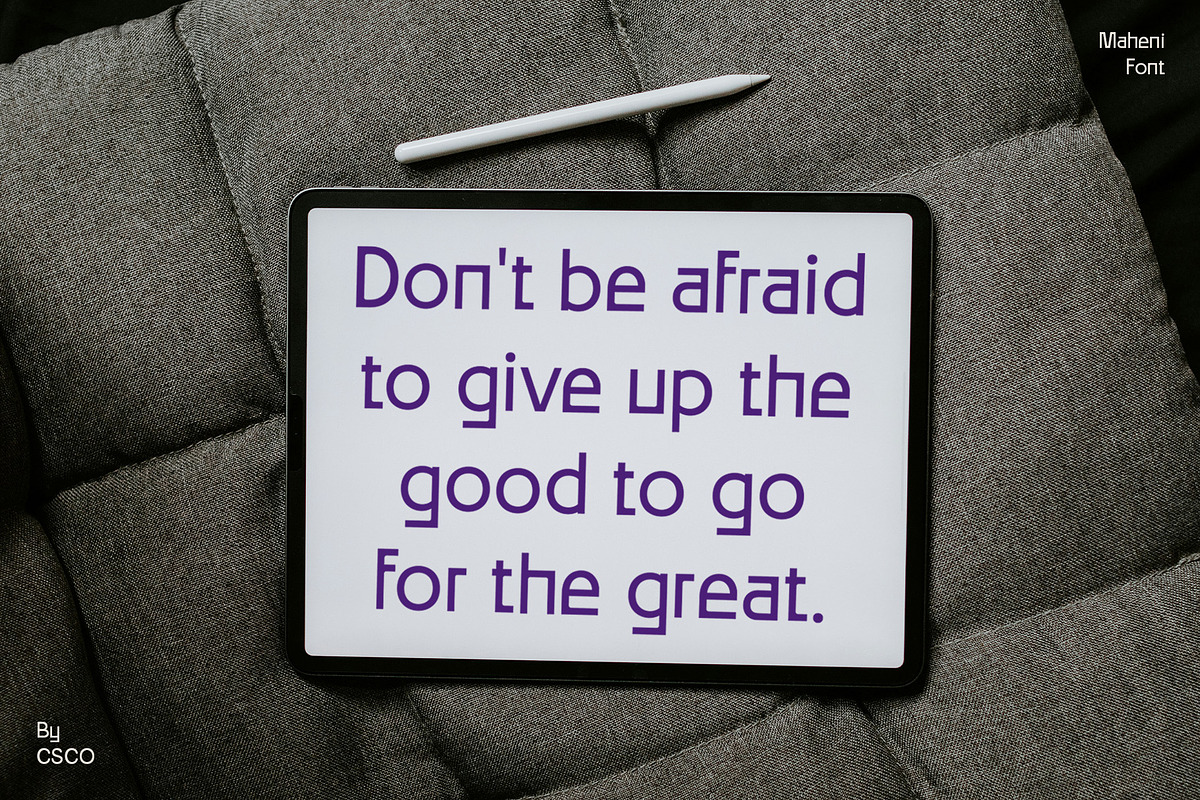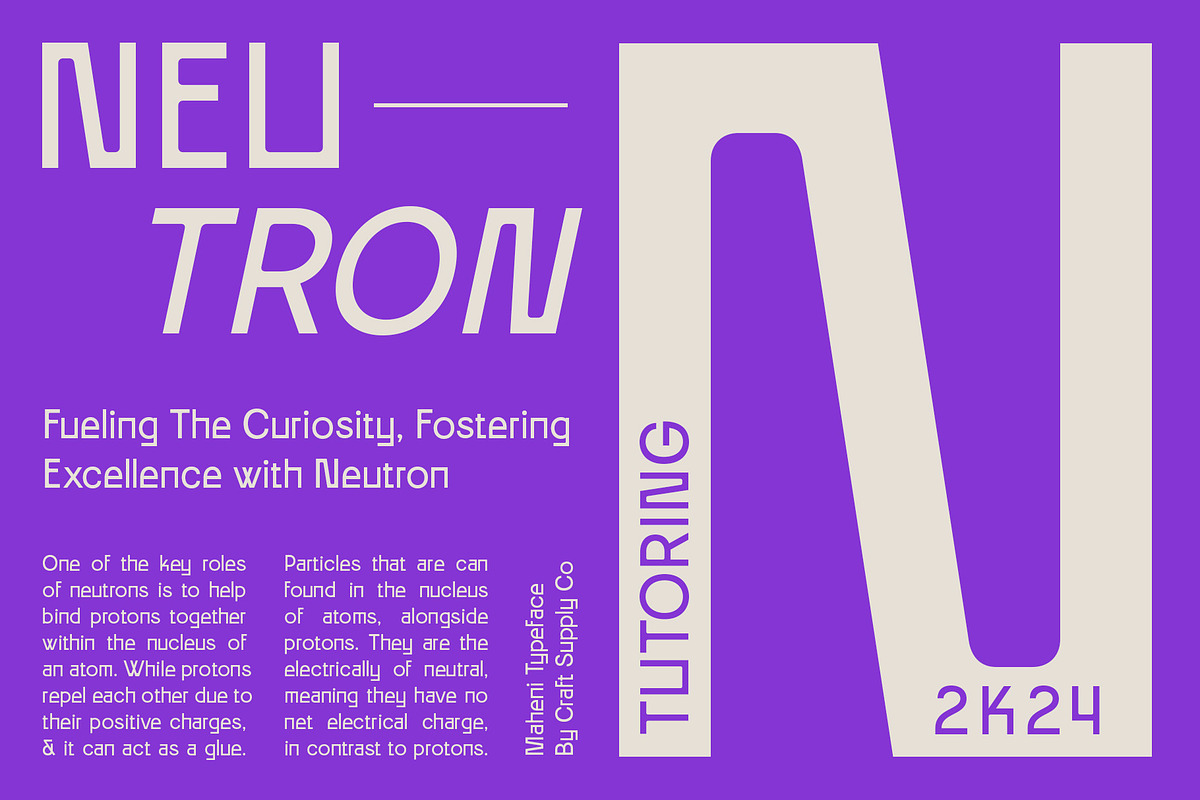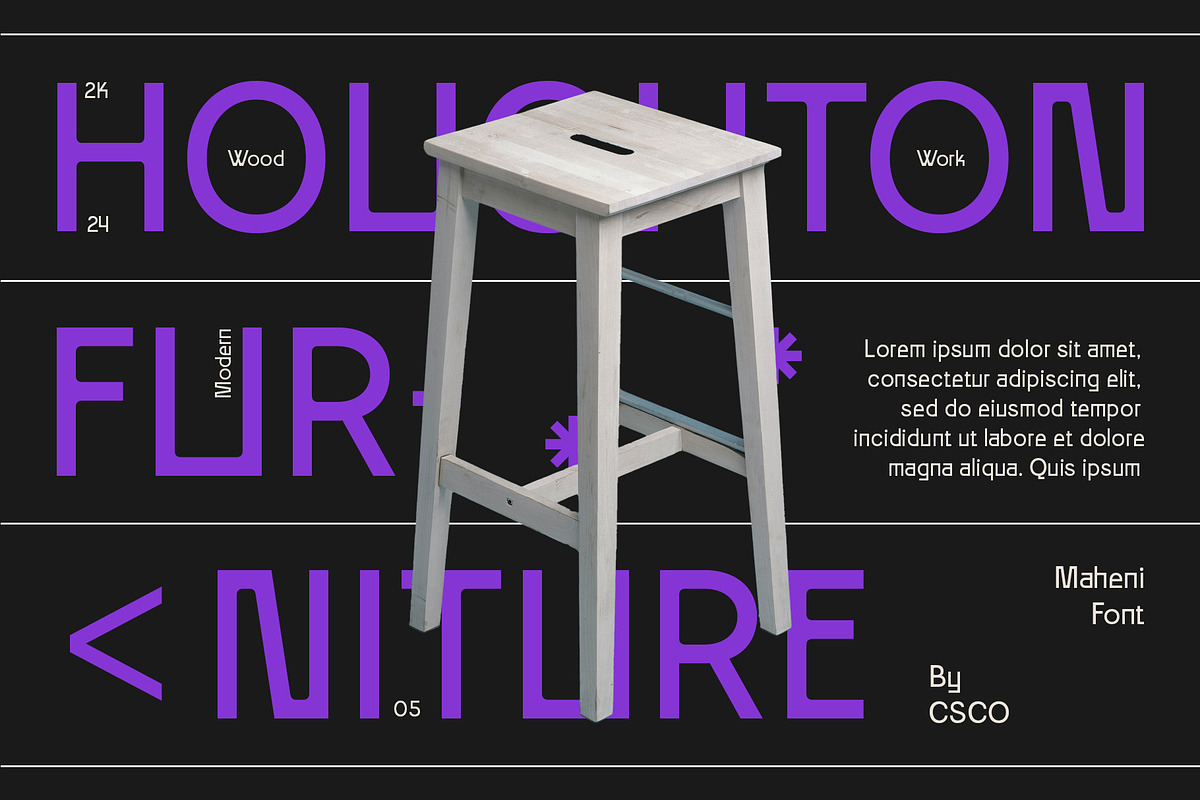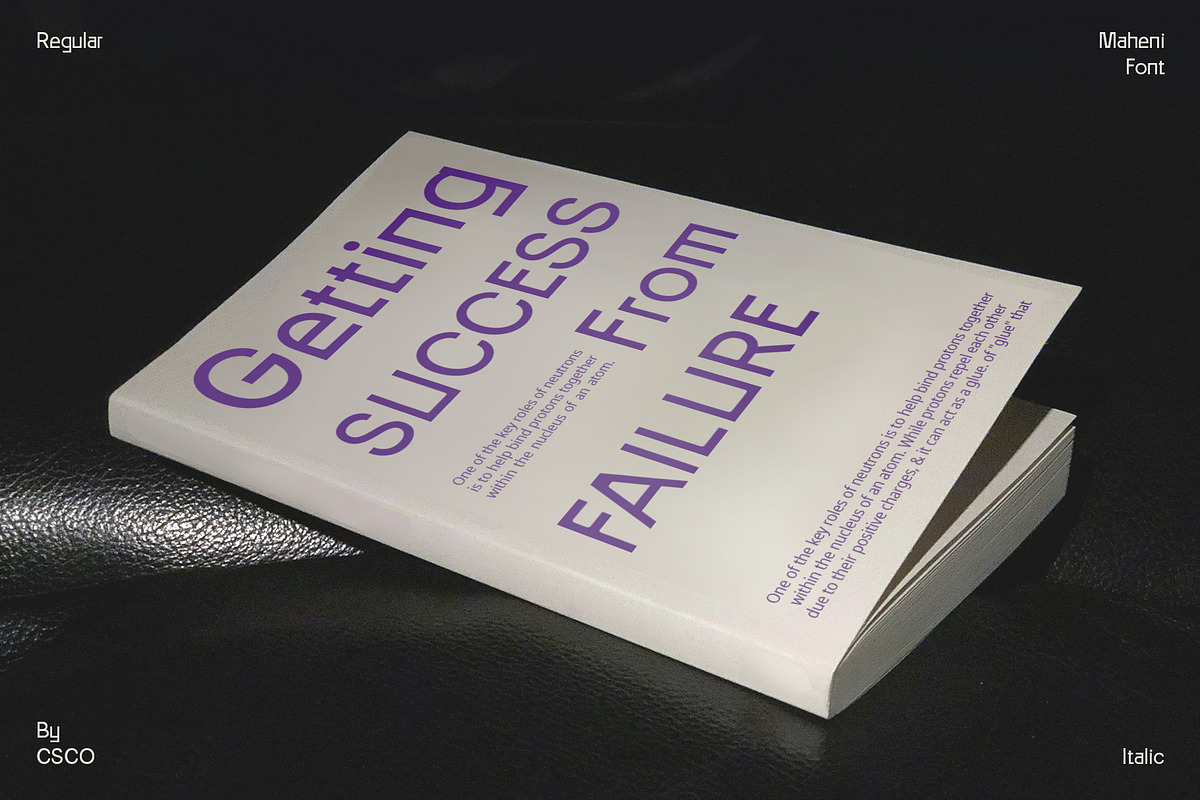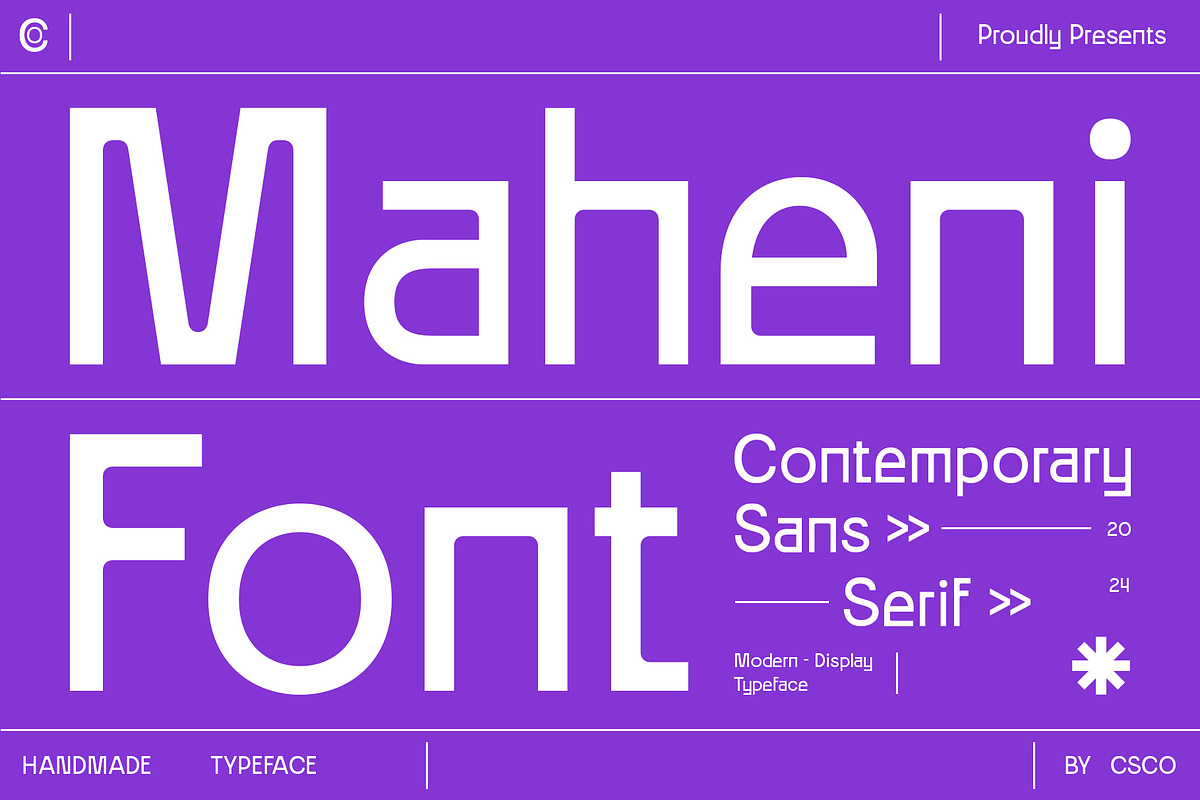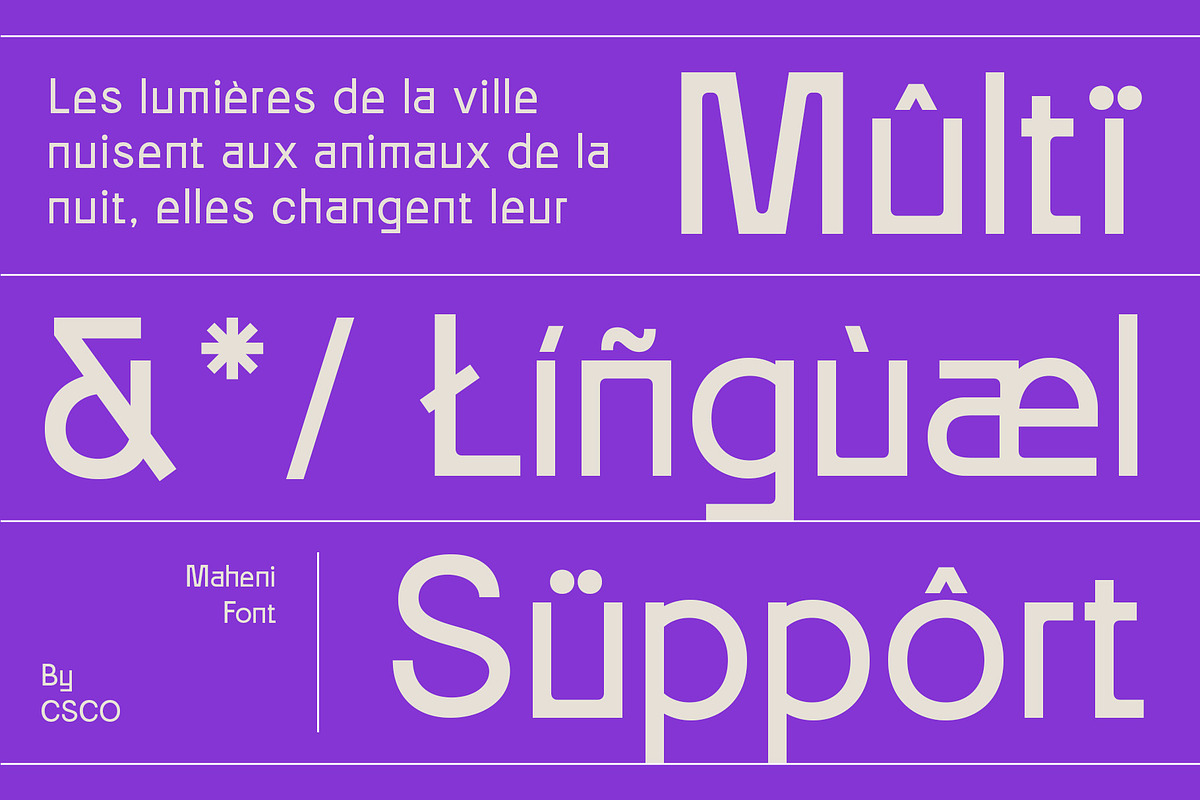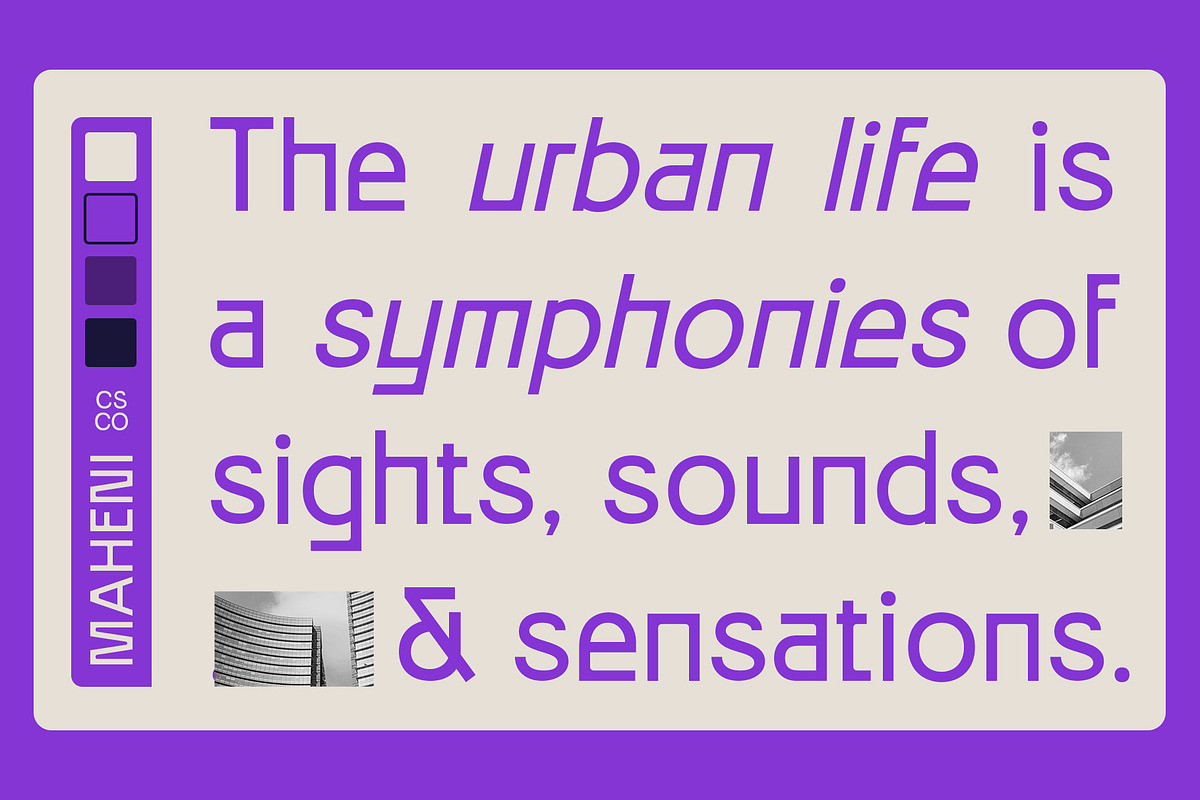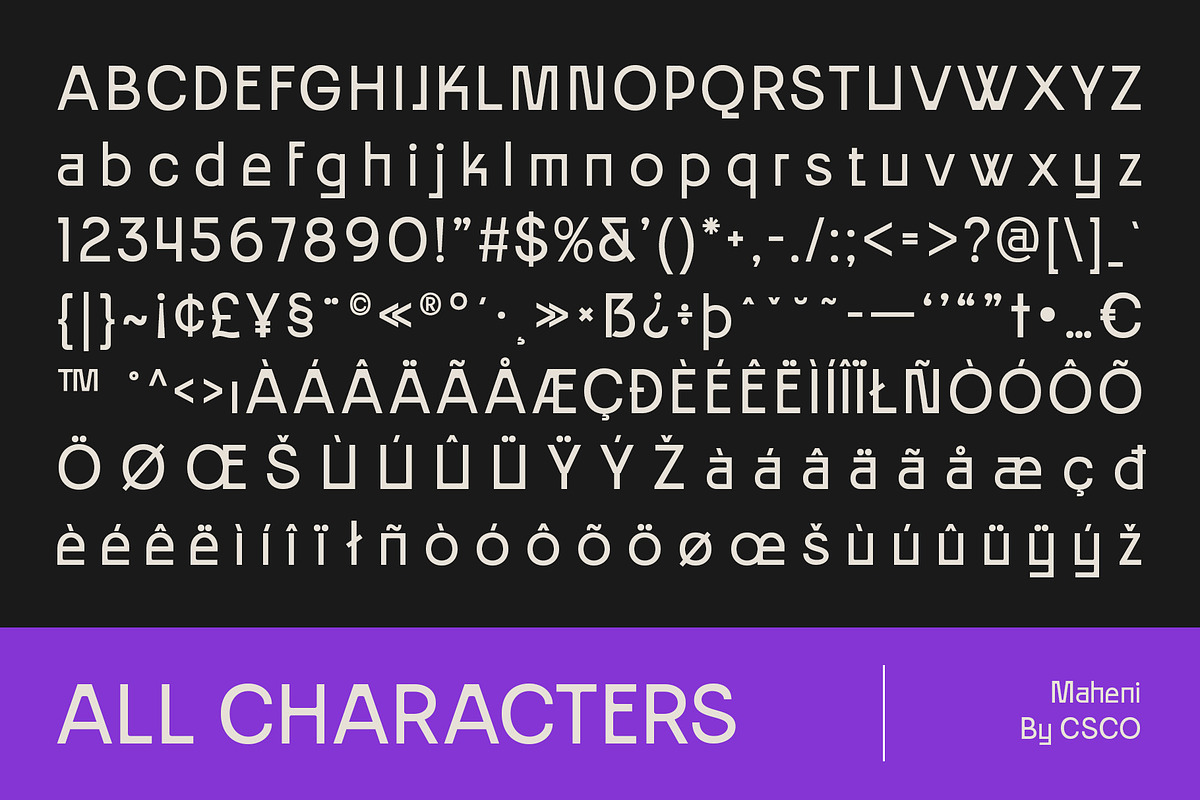
Maheni – Contemporary Sans
Maheni – Contemporary Sans: Where Modernity Meets Minimalism
Inspired by Grotesque Style
Maheni – Contemporary Sans is a sleek and modern sans serif font inspired by the timeless elegance of the grotesque style. Its clean lines and simple forms pay homage to the classic sans serifs, while its contemporary twist adds a fresh and unique look to any design.
Low Contrast for Clarity and Legibility
Experience the clarity and legibility of Maheni Font’s low contrast design. The balanced stroke widths ensure that each character is easily distinguishable, making it perfect for both digital and print applications where readability is key.
Perfect for Minimalistic Designs
With its minimalistic design, Maheni Font is perfect for creating clean and sophisticated designs. Whether you’re designing a sleek corporate identity or a stylish editorial layout, Maheni Font provides the perfect balance of modernity and minimalism.
Versatile for Various Design Applications
Maheni Font offers versatility for a wide range of design applications. Its clean lines and contemporary style make it suitable for branding, advertising, packaging, and more. Whether you’re designing a logo, headline, or body text, Maheni Font provides the perfect blend of style and functionality.